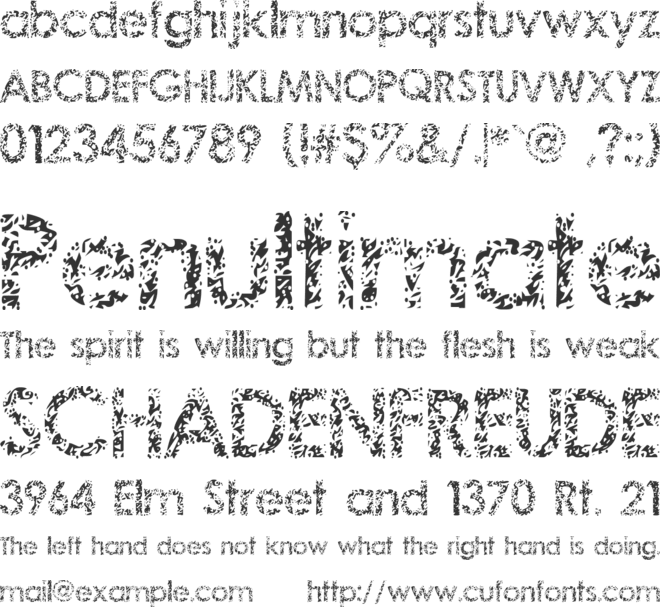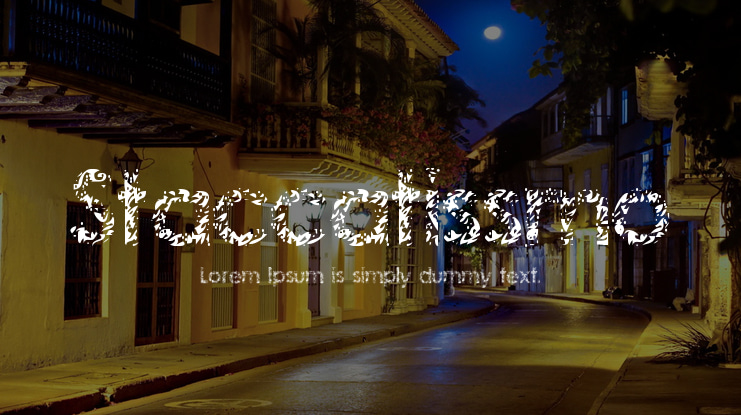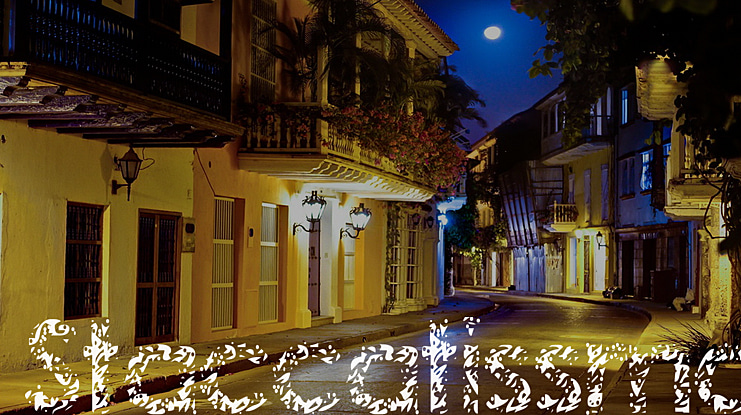
Staccatissmo Font
Another one of my messy-looking fonts. The staccatissimo symbol in music is a tiny triangle-like character over a note, just like the "dot" over the i and j.